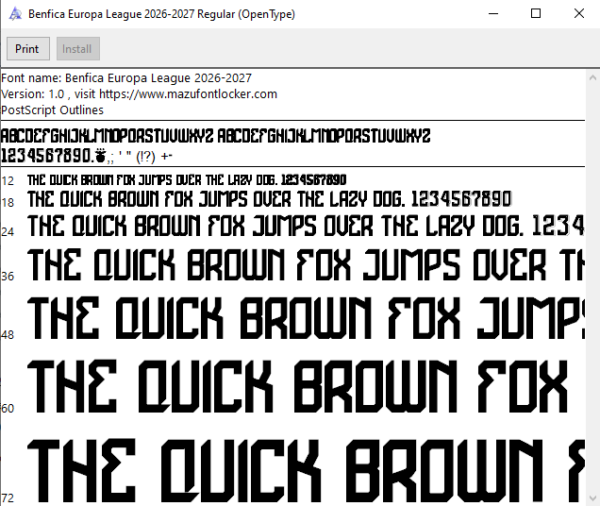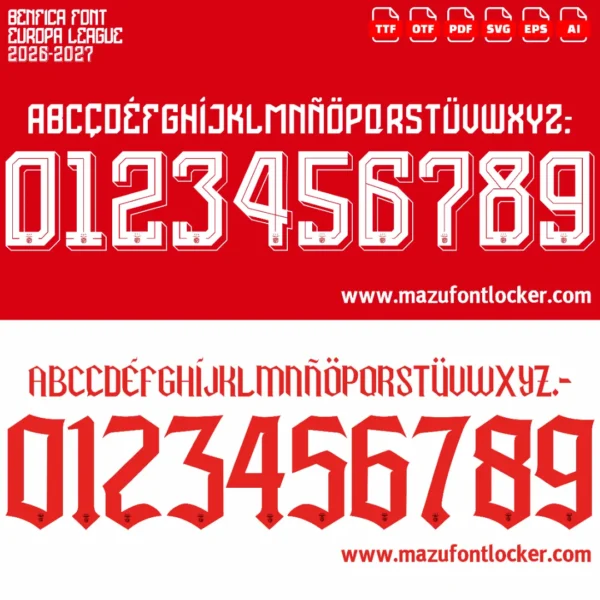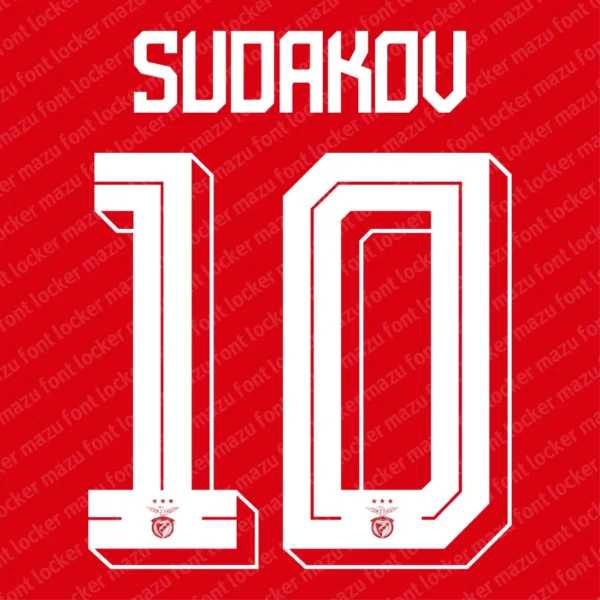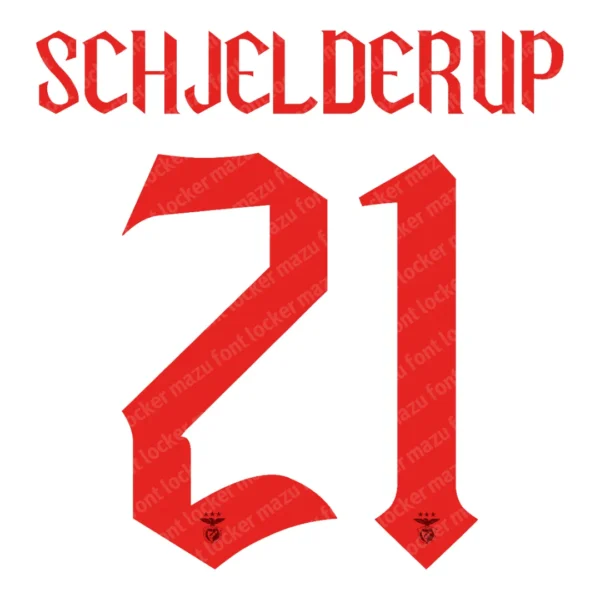
Benfica 2026-2027 Font Vector – Stunning Eagles of Lisbon Typeface
This premium font faithfully recreates the official match lettering worn by Benfica during the 2026-2027 season — delivering authentic Lisbon heritage, legendary Portuguese football tradition, championship-winning excellence, fearless attacking identity, unwavering ambition, passionate Estádio da Luz atmosphere, and the unmistakable red-and-white pride that has made Benfica one of Europe’s most celebrated football institutions.
Benfica 2026-2027 Font Vector – Stunning Eagles Legacy Typeface
The Benfica 2026-2027 Font Vector is a premium typeface that accurately recreates the official match lettering worn by Benfica during the exciting 2026-2027 season. This high-quality vector font kit captures the bold, retro-inspired typography introduced for the club’s latest campaign, perfectly complementing the iconic red-and-white identity of Portugal’s most successful football club. The official 2026-2027 lettering features a distinctive 3D shadow effect inspired by classic football typography from the 1990s, creating a unique visual identity for the Eagles.
Why Choose Benfica 2026-2027 Font Vector
This font stands out thanks to its precise vector construction and authentic club styling. Every character has been carefully recreated to match the official shirt lettering used throughout the 2026-2027 season. Whether you’re producing realistic kit templates or creating eye-catching football content, the Benfica 2026-2027 Font Vector delivers a genuine professional appearance.
The lettering featured in the Benfica 2026-2027 Font Vector combines bold geometric forms with an aggressive retro aesthetic inspired by iconic football fonts of the 1990s. Its signature three-dimensional shadow effect creates a distinctive appearance while maintaining excellent readability across all applications.
The numerals feature sharp angular edges, integrated 3D shadow detailing, and balanced spacing for maximum visibility. Built entirely as scalable vectors, every number remains crisp for jersey customization, digital graphics, posters, and large-format printing.
• Complete uppercase A–Z alphabet and numbers 0–9 in authentic Benfica 2026-2027 style
• Special Benfica crest glyph – Press the “:” (Colon) key to insert the club logo
• Includes authentic crest glyph placement beneath player numbers
Benfica 2026-2027 Season
The 2026-2027 season marks a special milestone for Benfica as the club celebrates 20 years of the Benfica Campus. The adidas home kit features a subtle architectural pattern inspired by the academy complex, while maintaining the club’s traditional red-and-white color scheme. The newly introduced official font complements this heritage-inspired design with a modern interpretation of classic football lettering.
Competing in the Primeira Liga, Taça de Portugal, Taça da Liga, and European competitions, Benfica continues its proud tradition of developing world-class talent while challenging for major honours both domestically and internationally. The club remains one of Europe’s most historic and decorated football institutions.
The Benfica 2026-2027 Font Vector is an independently designed typeface package inspired by the official shirt lettering used during the 2026-2027 season. It has been carefully recreated for football enthusiasts, graphic designers, collectors, and creators producing custom jersey concepts, nostalgic football artwork, and fan-made projects.